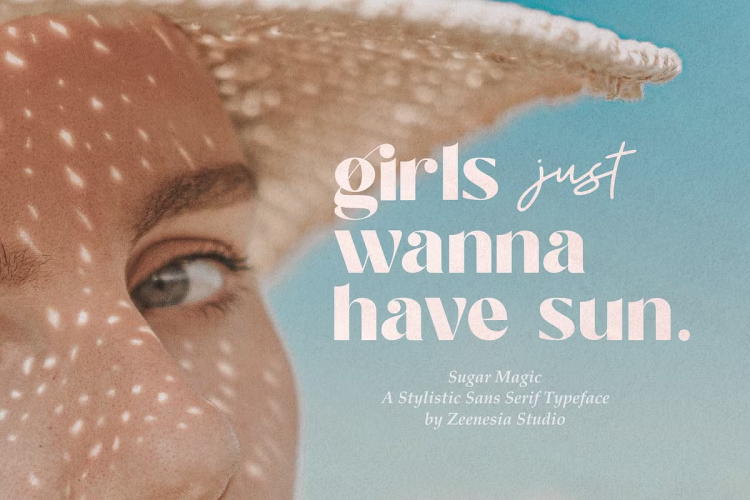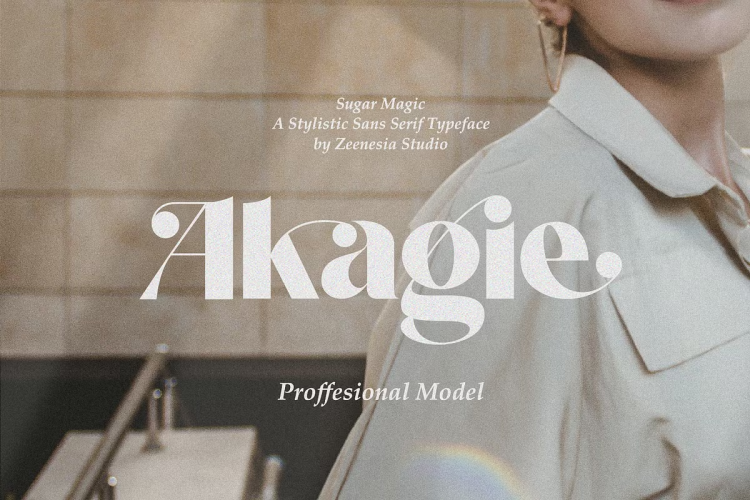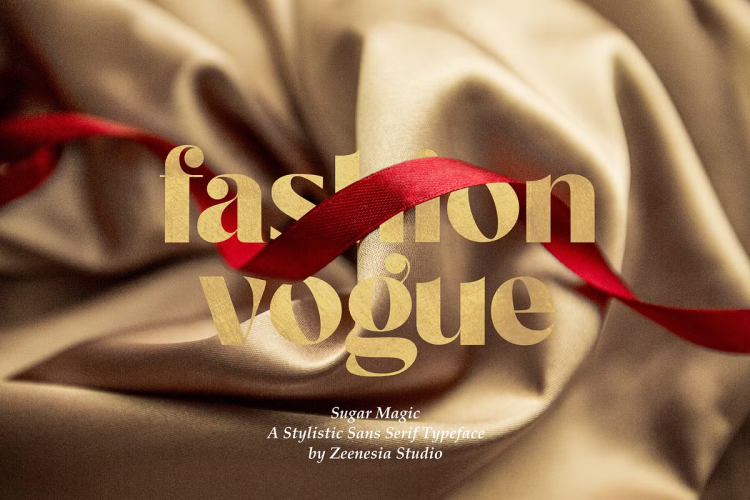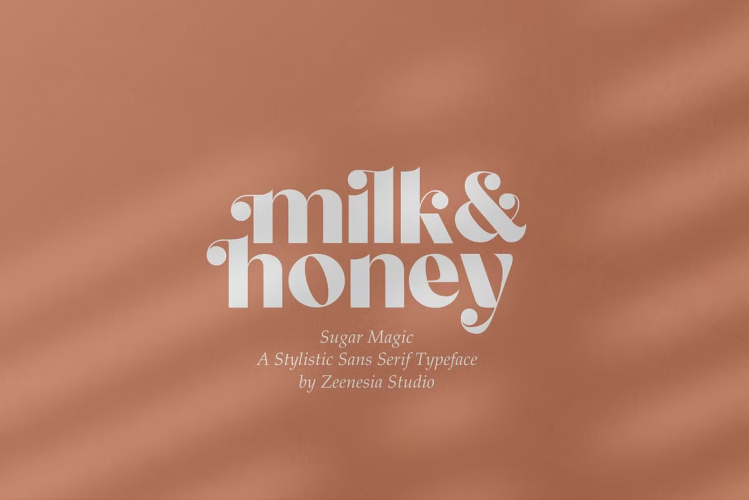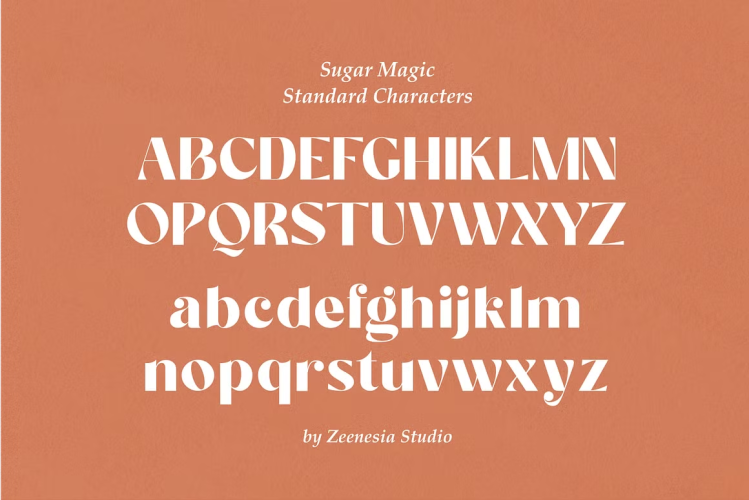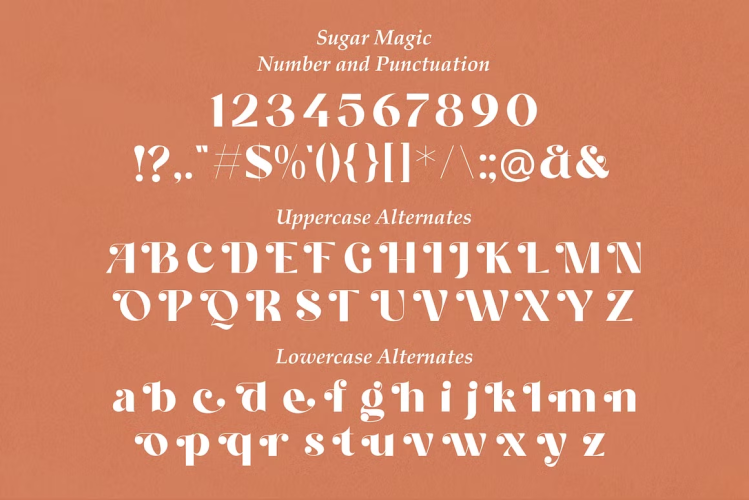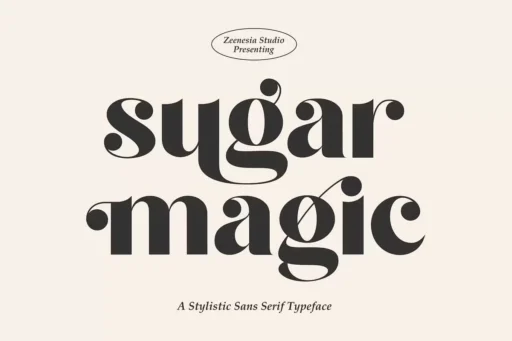
Sugar Magic Font
Sugar Magic is a stylish and elegant serif font by zeenesia studio. This font is suitable for any type of project, from advertising to branding, logos, packaging, titles…
Sugar Magic is a stylish and elegant serif font by zeenesia studio. This font is suitable for any type of project, from advertising to branding, logos, packaging, titles, and headlines for editorial design. It has many stylistic sets and the most natural ligatures to enhance the beauty of your designs. It comes with OpenType features to ensure your design projects come out with perfect and utmost elegance.
Another feature of Sugar Magic is its multilingual support, which can be helpful in global projects and designs. It comprises a large number of characters and diacritics to enable one to type in any language of the world and convey the intended message.
Where Sugar Magic Font works best
Sugar Magic Font gives long-form text a classic, trustworthy rhythm — ideal for magazine spreads, annual reports and book interiors.
Pair Sugar Magic Font with generous letter-spacing for wordmarks in fashion, hospitality, wine and jewellery branding.
Use Sugar Magic Font for slide titles in Keynote, PowerPoint or Google Slides to add authority without looking dated.
What is Sugar Magic Font good for?